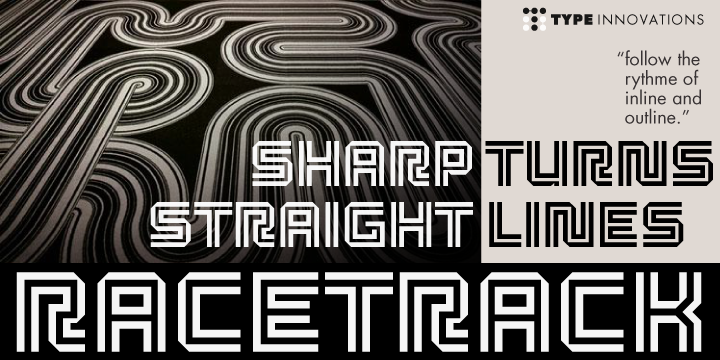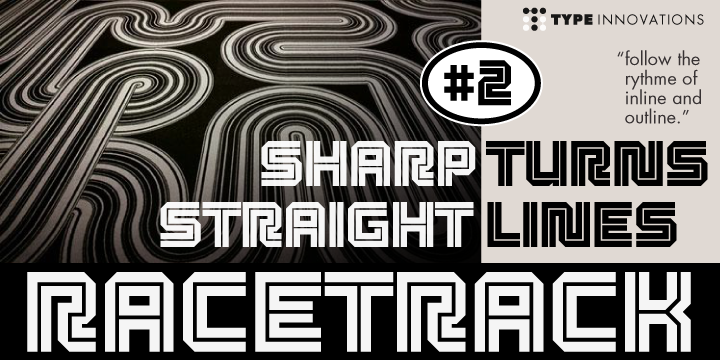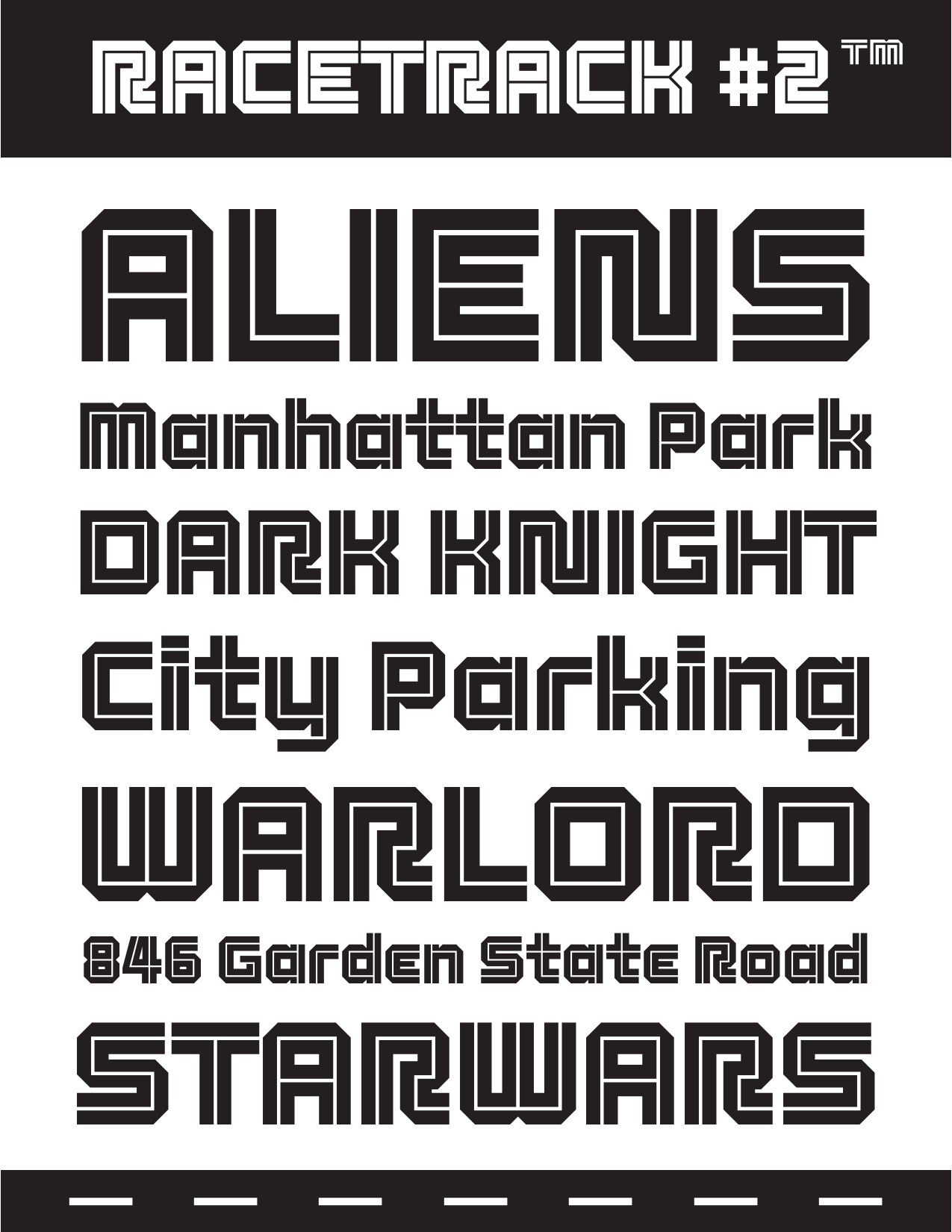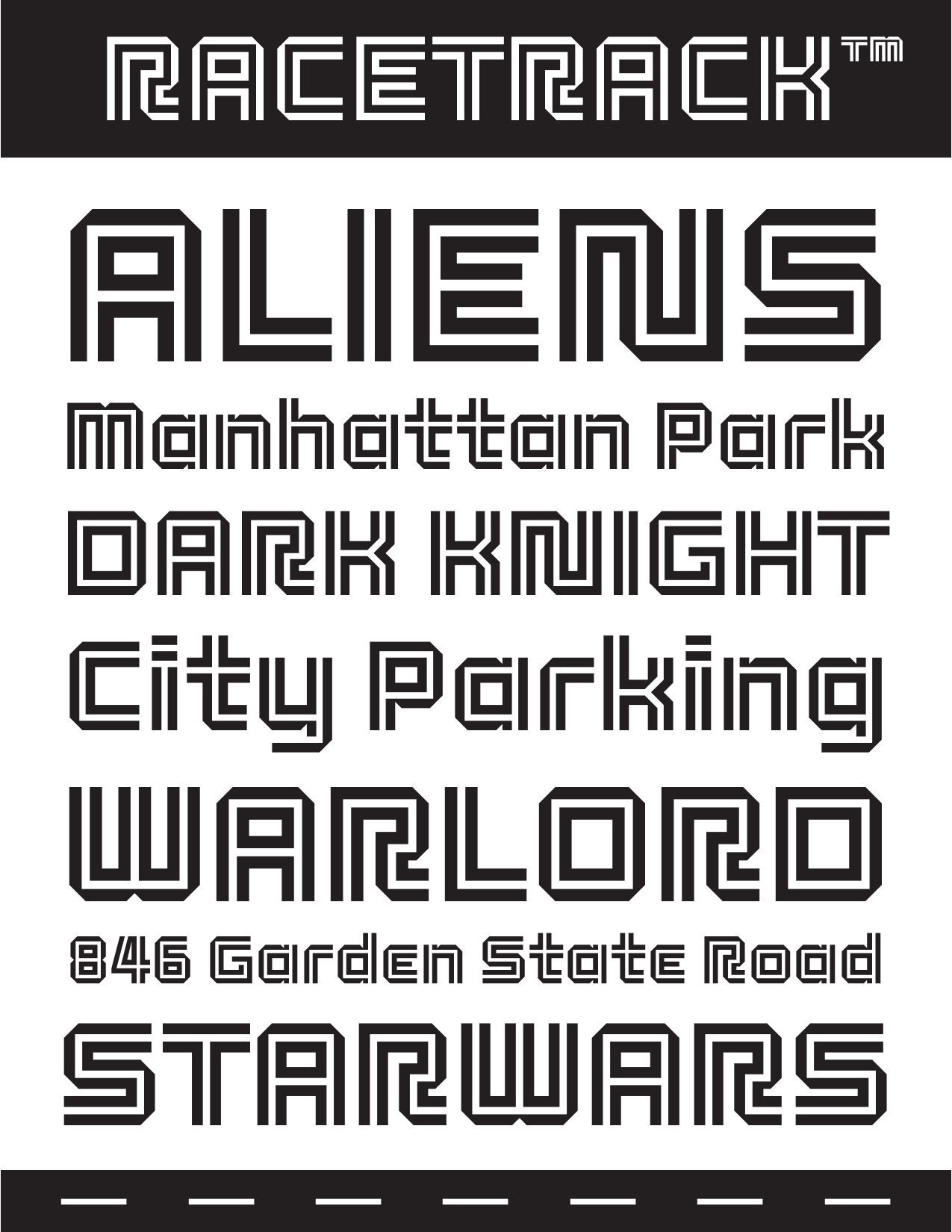
Racetrack Collection
Racetrack
RegularRacetrack Two
Regular‘Racetrack’ is the work of an American type designer, Alex Kaczun, and was conceived as a result of developing a logo for a client. Alex was experimenting with a uniform grid pattern, outline and inline, connecting the dots which lead to this interesting typeface effect.
‘Racetrack’ is a bold display font, which also works well at many point sizes. It has a futuristic appeal with straight lines and sharp corners. The uniform strokes, inline treatment and symetry make for a powerful headline. The applications for this font design are endless.